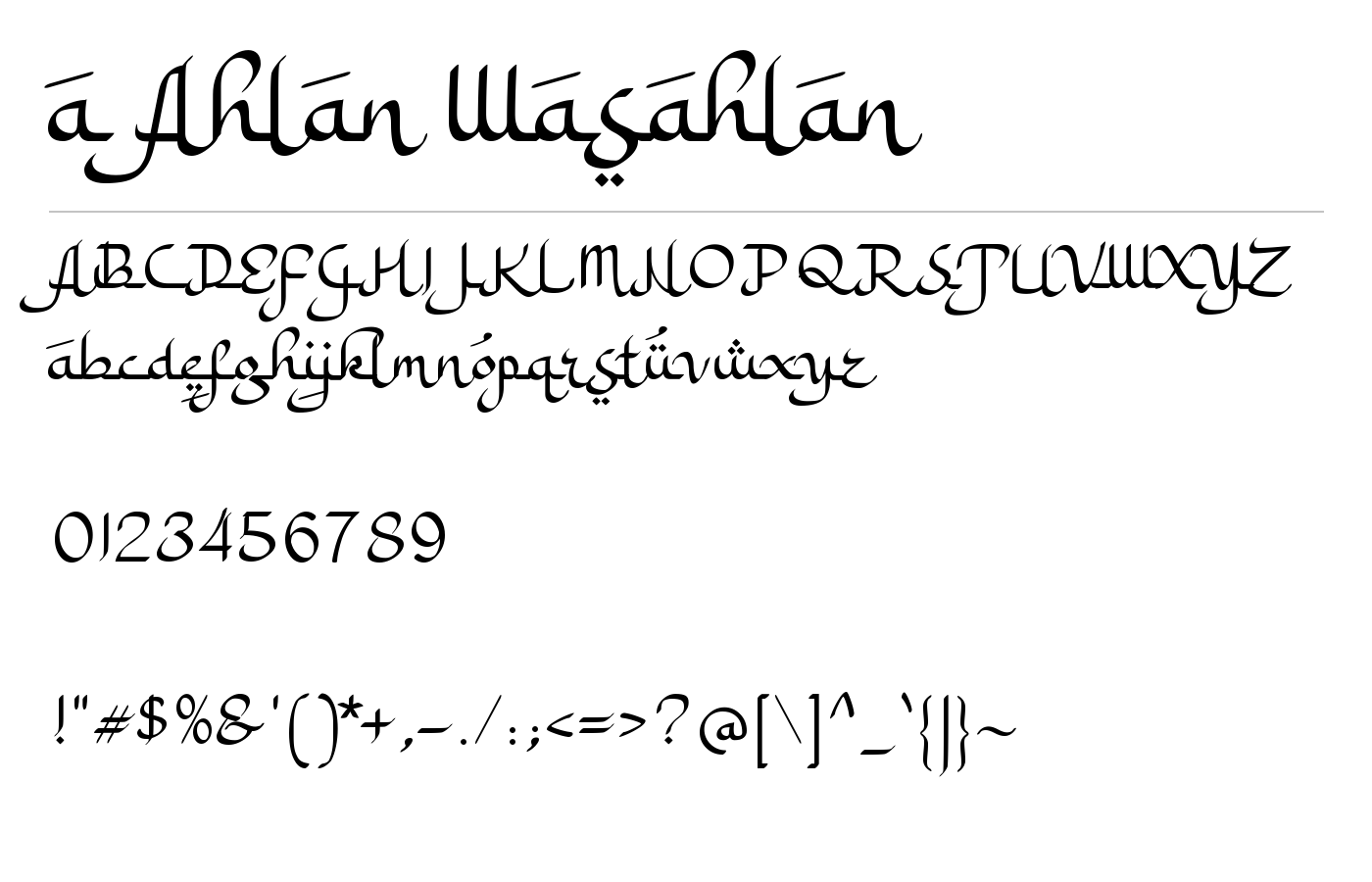
Ahlan Wasahlan is a graceful, calligraphic script font featuring elegant, flowing strokes with moderate contrast and delicate curves that evoke a sophisticated, handwritten feel. Its unique letterforms combine a refined flair with readability, making it ideal for invitations, artistic branding, and stylish editorial designs seeking a touch of classic charm and personality. This font works best in decorative contexts where a warm, inviting tone is desired.
a Ahlan Wasahlan Font
About a Ahlan Wasahlan Font